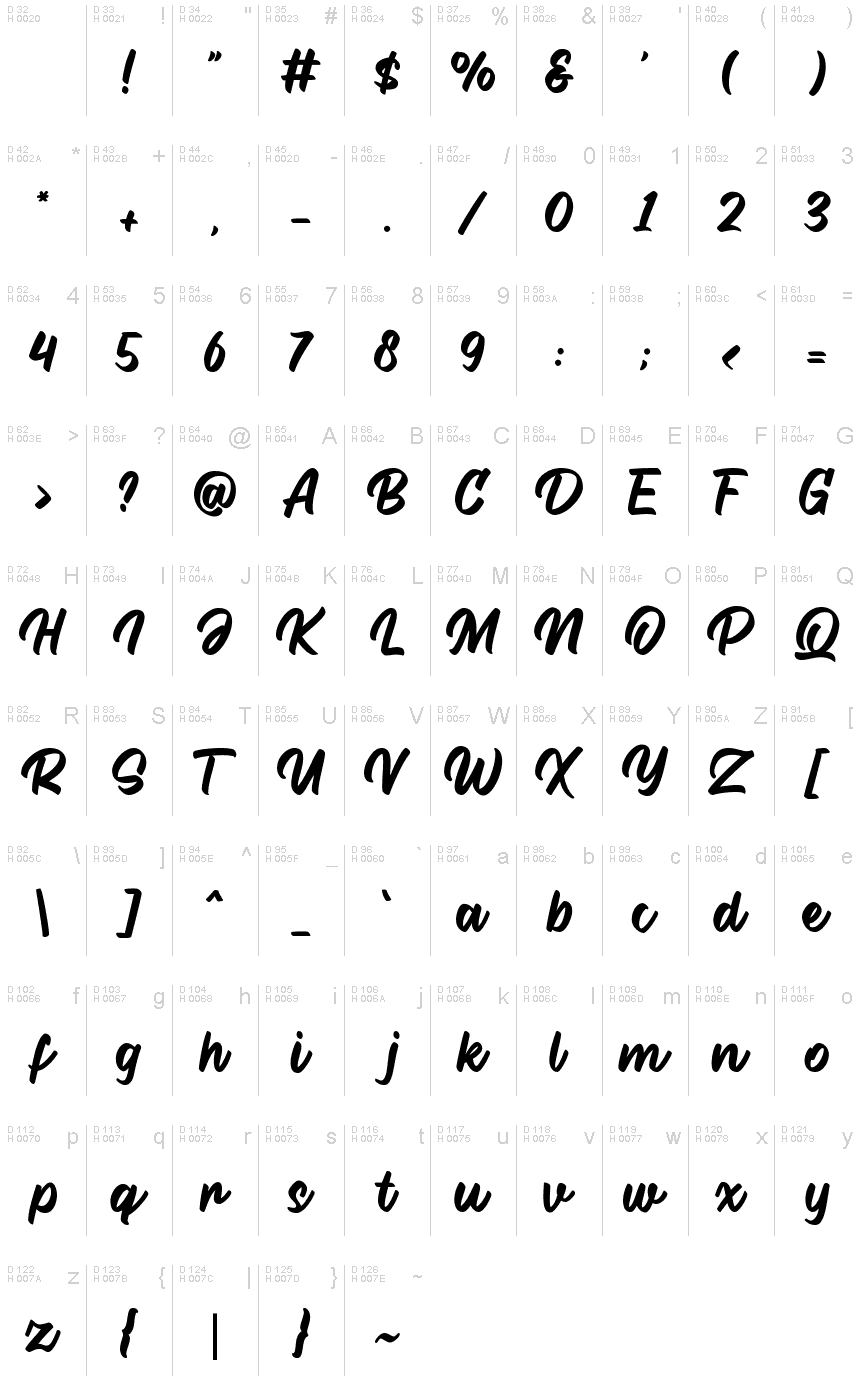
Rastano
Rastano is a bold marker script font designed by Kong Font, perfect for adding a playful and authentic touch to your creative projects. Its thick strokes give it a strong presence, while its flowing curves evoke the feeling of handwriting. Rastano can be used in various designs such as logos, posters, invitations, and social media graphics. It's suitable for any project that requires a touch of personality and character. Whether you're designing a children's book cover or creating typography for your brand identity, Rastano is an excellent choice to make your design stand out from the crowd.